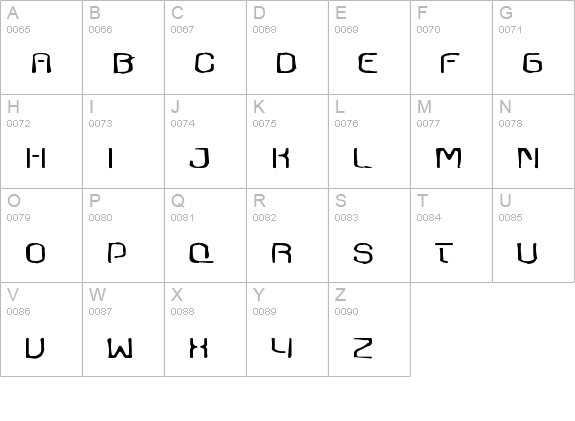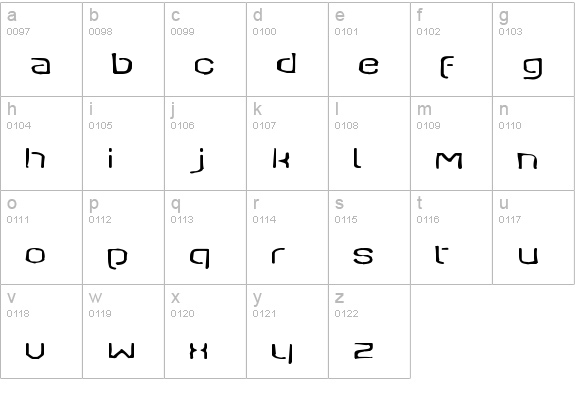
Axaxax Gaunt Font Details
Axaxax Gaunt is a stunning display font that exudes a sense of mystery and dark elegance. With its sharp edges and intricate design, this font is perfect for creating eye-catching headlines and graphic designs that demand attention. The unique combination of angular shapes and intricate details gives Axaxax Gaunt a distinctive look that sets it apart from other fonts. What sets Axaxax Gaunt apart is that it is available for free download at FontsMarket.com. This means that you can easily access this high-quality font without any cost, making it a valuable addition to your font collection. Whether you're working on a poster, logo, or any other design project, Axaxax Gaunt is sure to make a bold statement and leave a lasting impression. Download Axaxax Gaunt today and unleash your creativity with this captivating font.